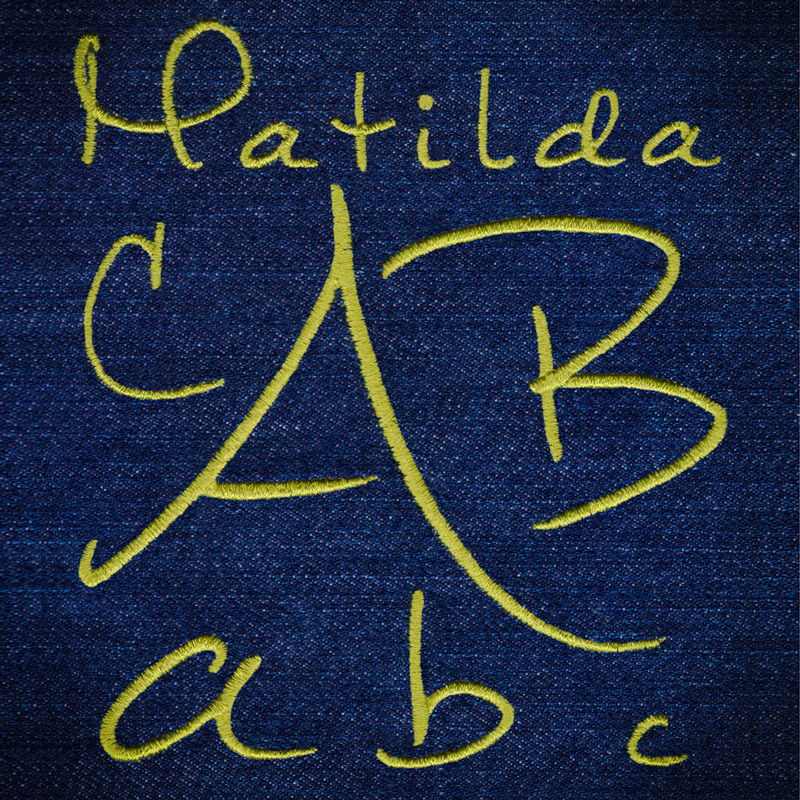
470 Matilda Satin Font
Matilda Satin Font comes in 1", 2" and 3" heights based on the uppercase "A". Many uppercase letters have long tails and are much wider than they are tall and will exceed standard 4x4 hoop limitations in the larger sizes. All sizes are finished in Satin stitching. All sizes included in purchase price. Includes uppercase letters, lowercase letters, numbers and four punctuation marks.